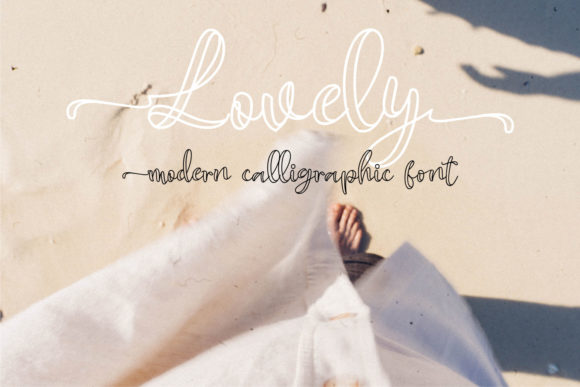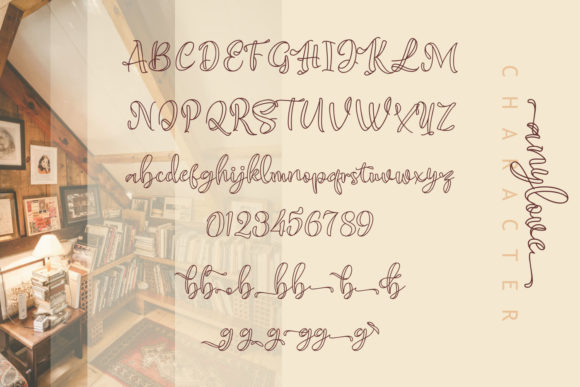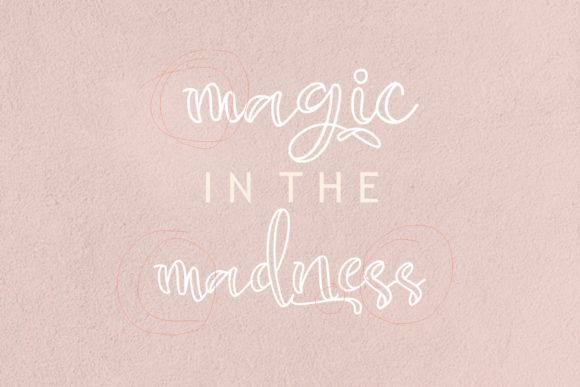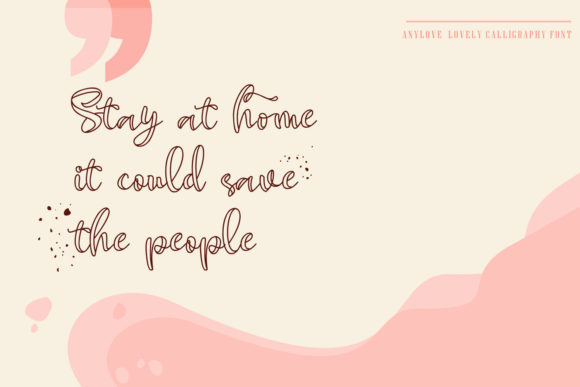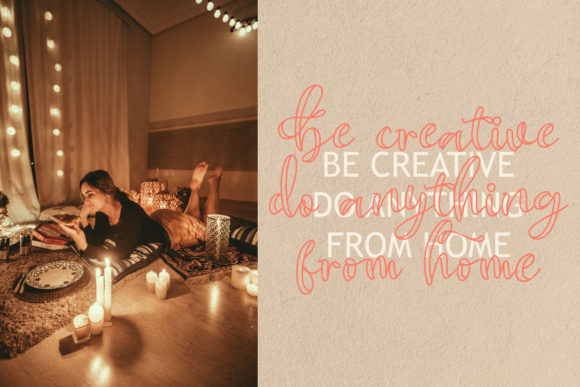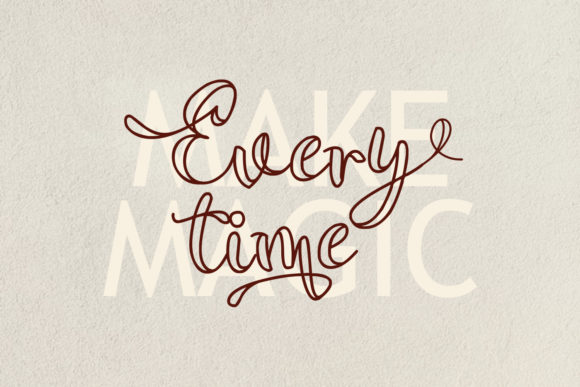
The Elusive Perfect Font: My Encounter with Anylove
I’ll never forget the time I was working on a branding project for a luxury candle company. My client was particular about the aesthetic, wanting something that exuded elegance and sophistication. As I scrolled through font after font, nothing seemed to fit the bill. That was until I stumbled upon Anylove, a handwritten font that effortlessly blended classic calligraphy with a modern twist. ✨
An Honest Review of Anylove Font
- ✨ Elegant yet approachable: Anylove strikes the perfect balance between sophistication and friendliness, making it suitable for a wide range of projects.
- ✅ Versatile: From logos and branding to social media graphics and DIY crafts, Anylove adapts seamlessly to various design needs.
- 💫 Contemporary feel: Unlike traditional calligraphic fonts, Anylove has a fresh, modern vibe that will make your designs stand out.
While Anylove is an outstanding font, it’s not without its quirks. ⚠️ Some users might find that the font’s elegance can be overwhelming for very casual or playful projects. Additionally, the font’s script nature means it may not be the best choice for very long blocks of text. 🤔
The Story Behind Anylove
Anylove was designed by a team of typographers who sought to capture the essence of classic calligraphy in a modern, digital age. Inspired by the flowing scripts of 18th-century Europe, they crafted a font that would bring elegance and sophistication to a wide range of design applications. The result is a font that feels both timeless and contemporary.
| Font Name | Anylove Font |
| Author | Nico Muslib |
Q: Does Anylove support OpenType features?
A: Yes, Anylove supports OpenType features, including ligatures, stylistic alternates, and glyphs. This allows for a high degree of customization and creativity in your designs.
Q: Is Anylove a script font?
A: While Anylove has script influences, it’s more accurately described as a handwritten font with calligraphic elements. Its unique blend of classic and modern styles sets it apart from traditional script fonts.